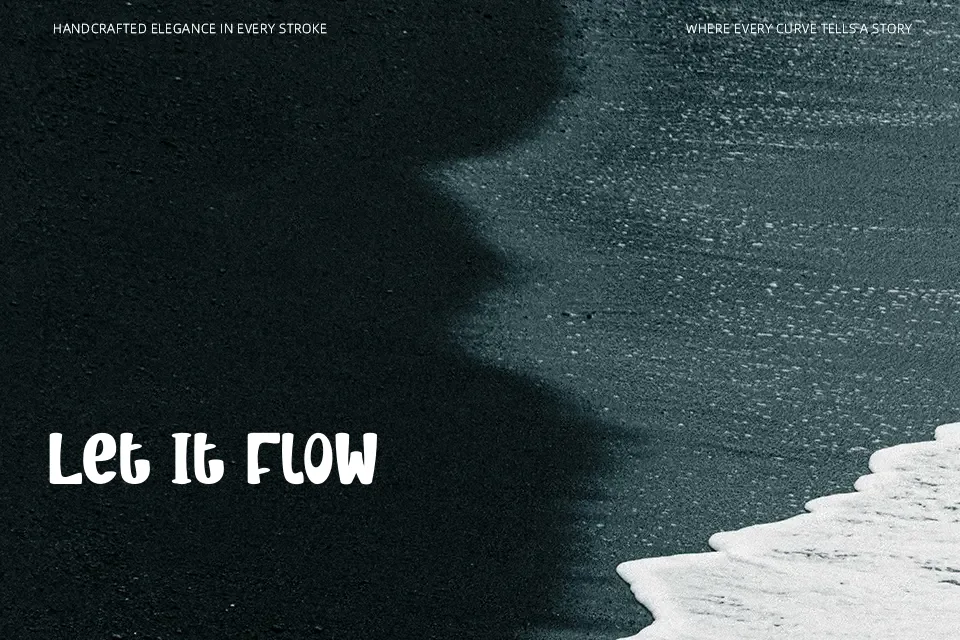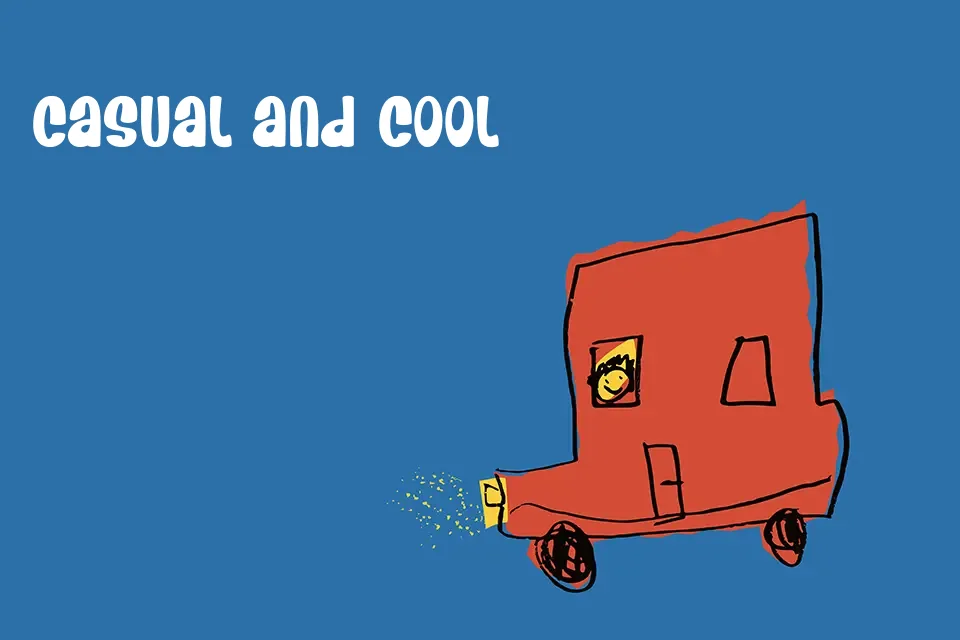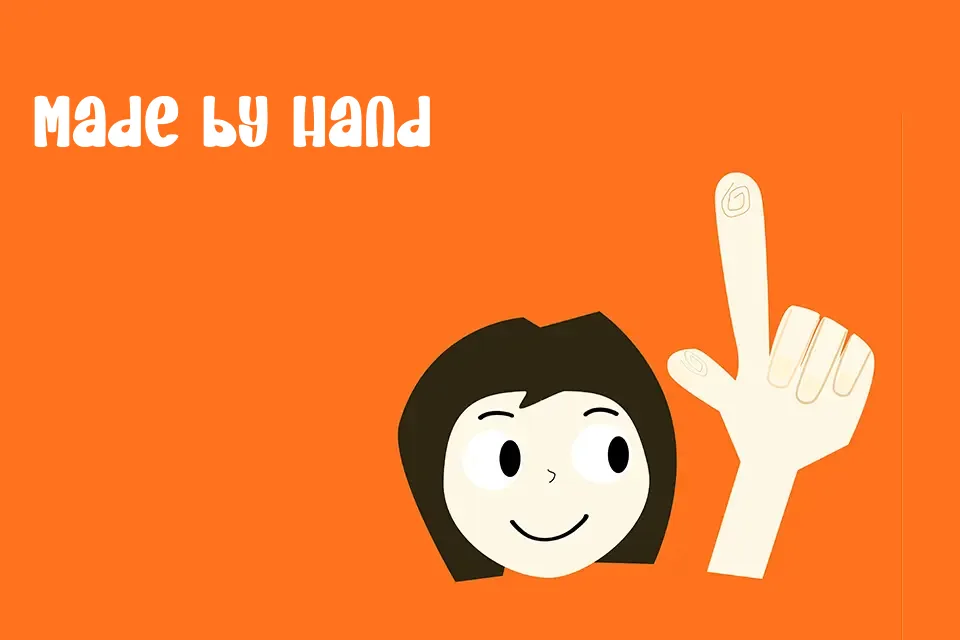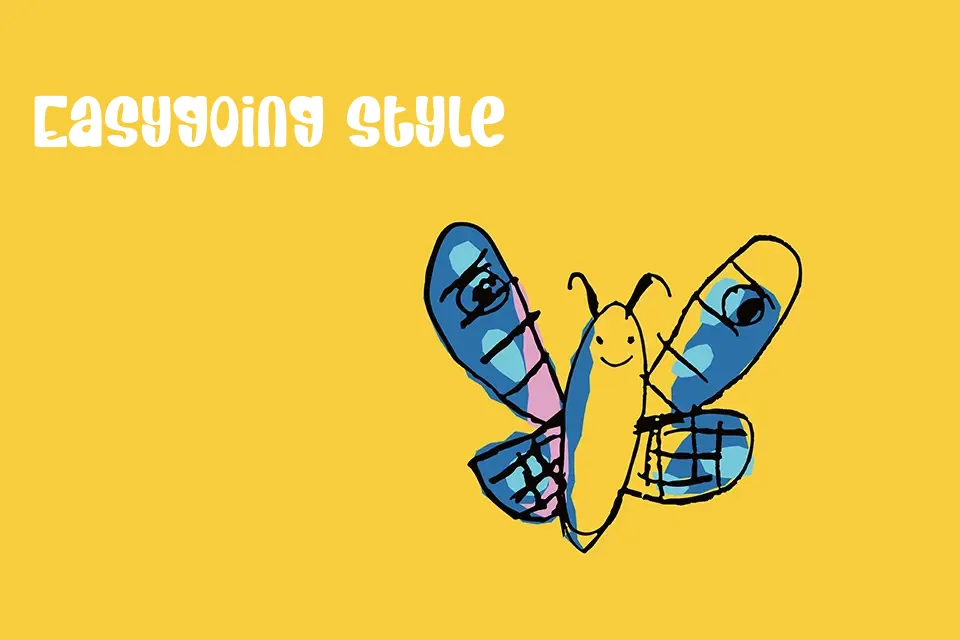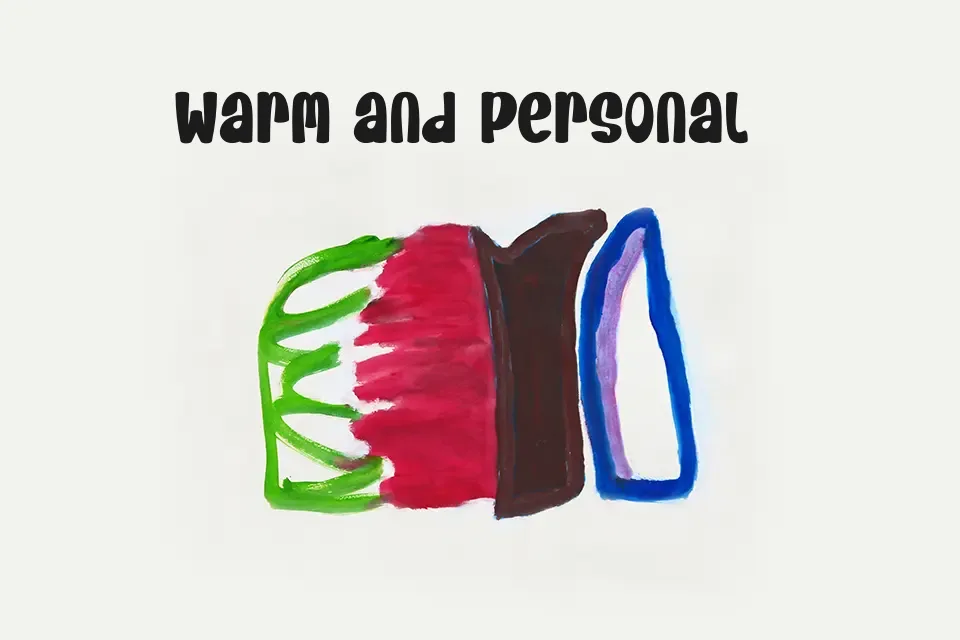
Religious Santa Font
Religious Santa Font delivers a delightfully bouncy and energetic rhythm that instantly elevates casual design projects. The visible letterforms showcase thick, slightly irregular strokes and relaxed proportions that give it a warm, handcrafted appearance. Its open spacing helps maintain clarity in larger headlines, making the characters easy to distinguish when printed on festive packaging or children’s book covers. However, the decorative, varying baseline becomes less effective at smaller sizes, where the playful bounce can disrupt continuous reading. This typeface performs exceptionally well for seasonal posters, holiday greeting cards, and toy branding, though it should be avoided for dense editorial paragraphs or small interface labels.
Best For: children’s book covers, holiday greeting cards, festive product packaging, seasonal event posters
Not Ideal For: dense editorial layouts, corporate reports, small interface labels, continuous paragraph text
Perfect for christmas, headline, and holiday, with a cute and cartoon style.